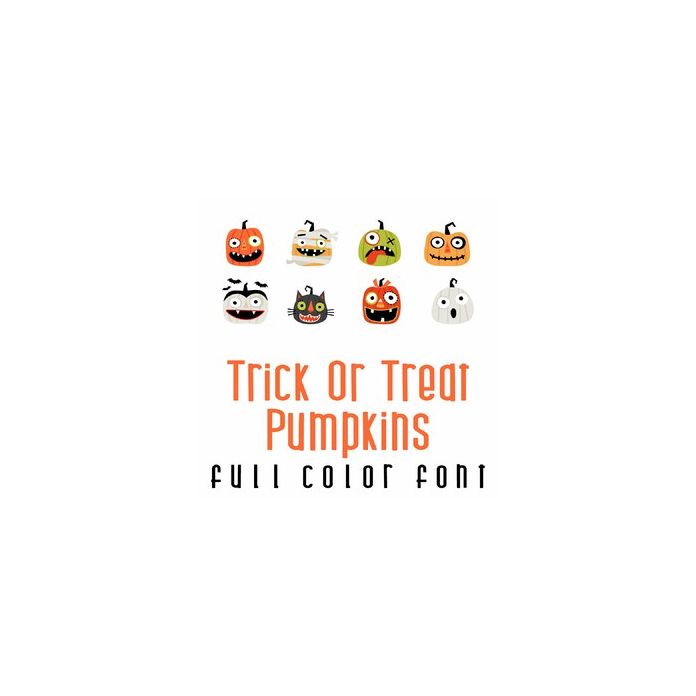
This adorable full-color doodlebat font features 26 fun jack-o-lanterns, perfect for cards, crafts, gifts, decor, scrapbook pages, planner stickers, and more!